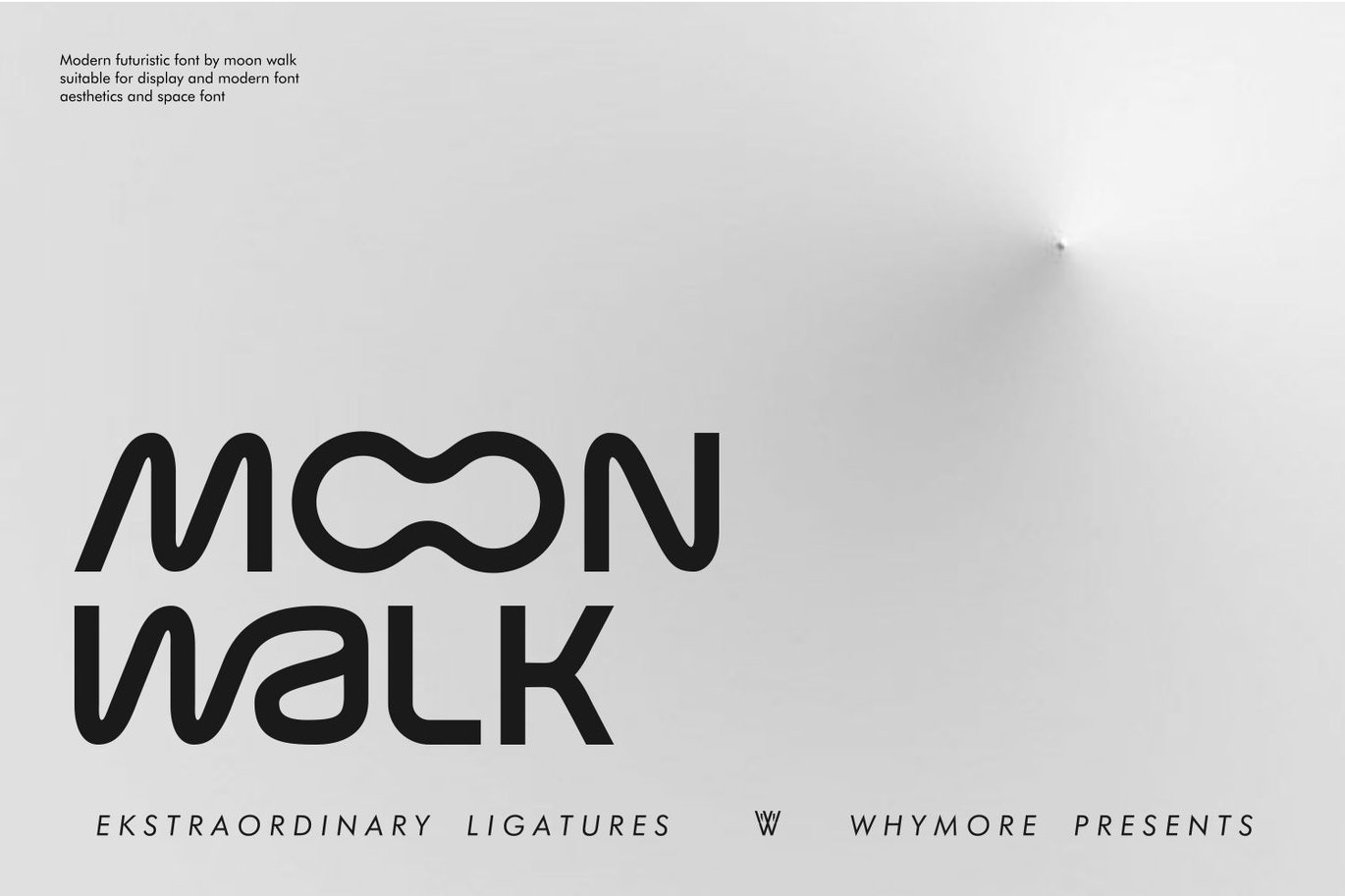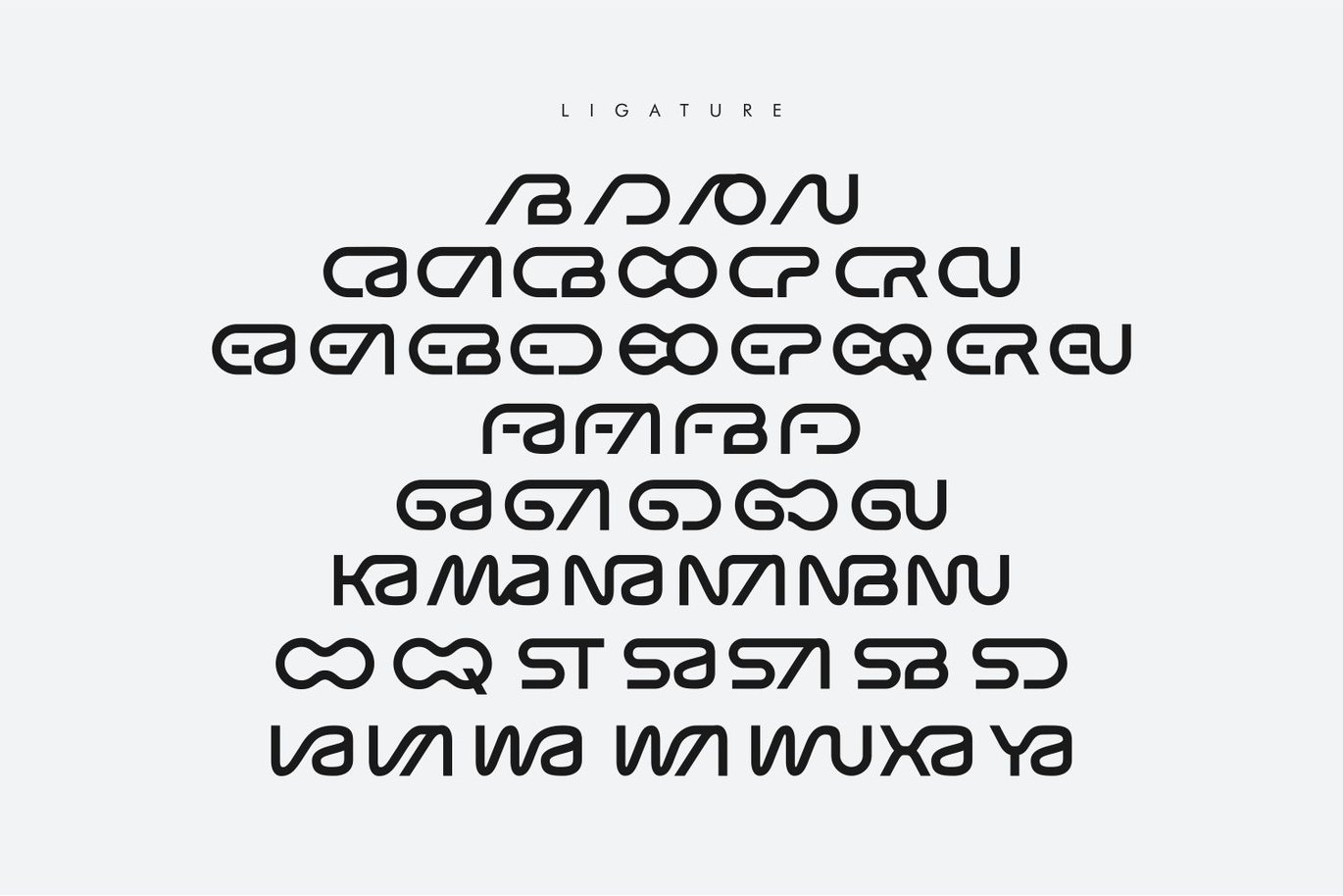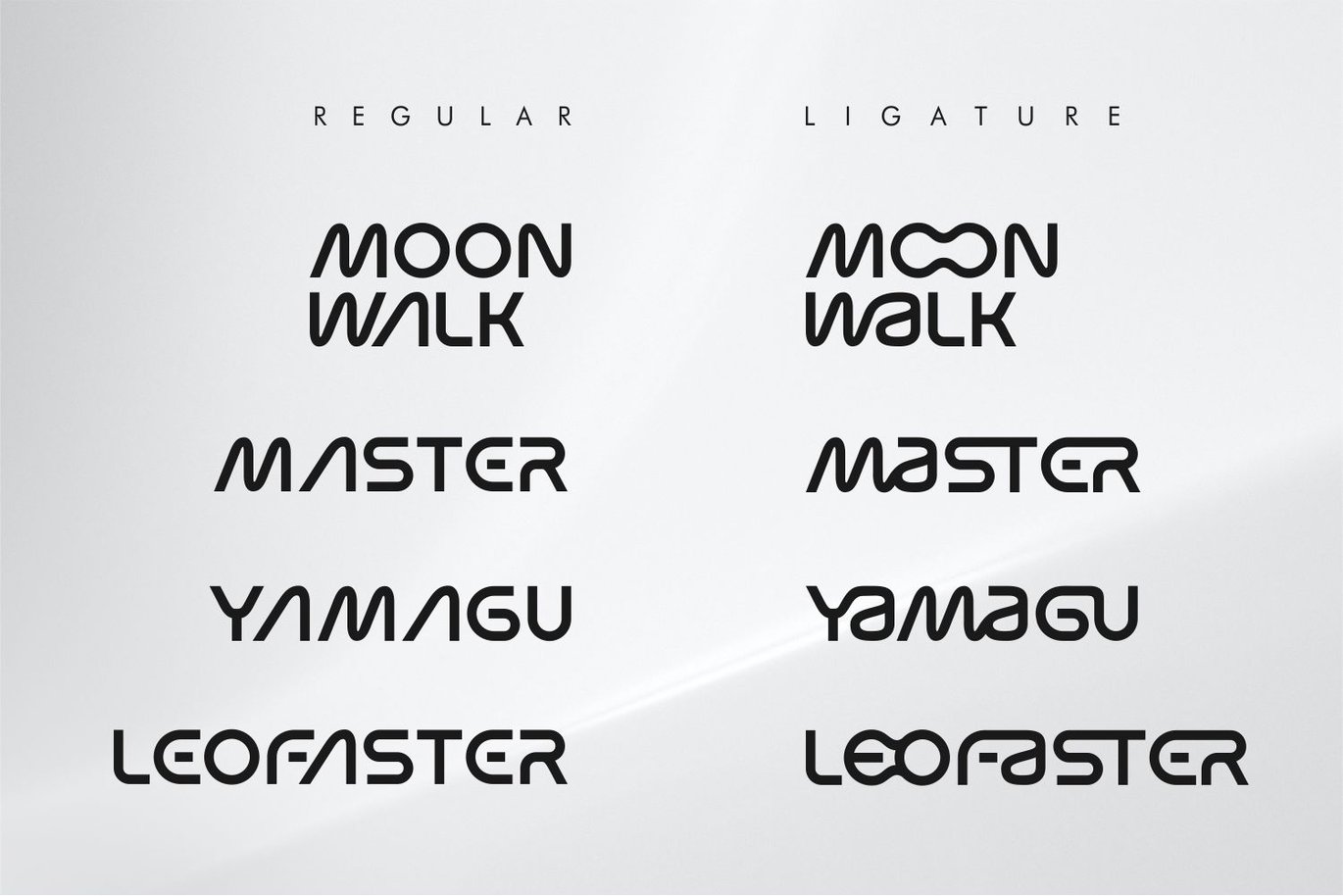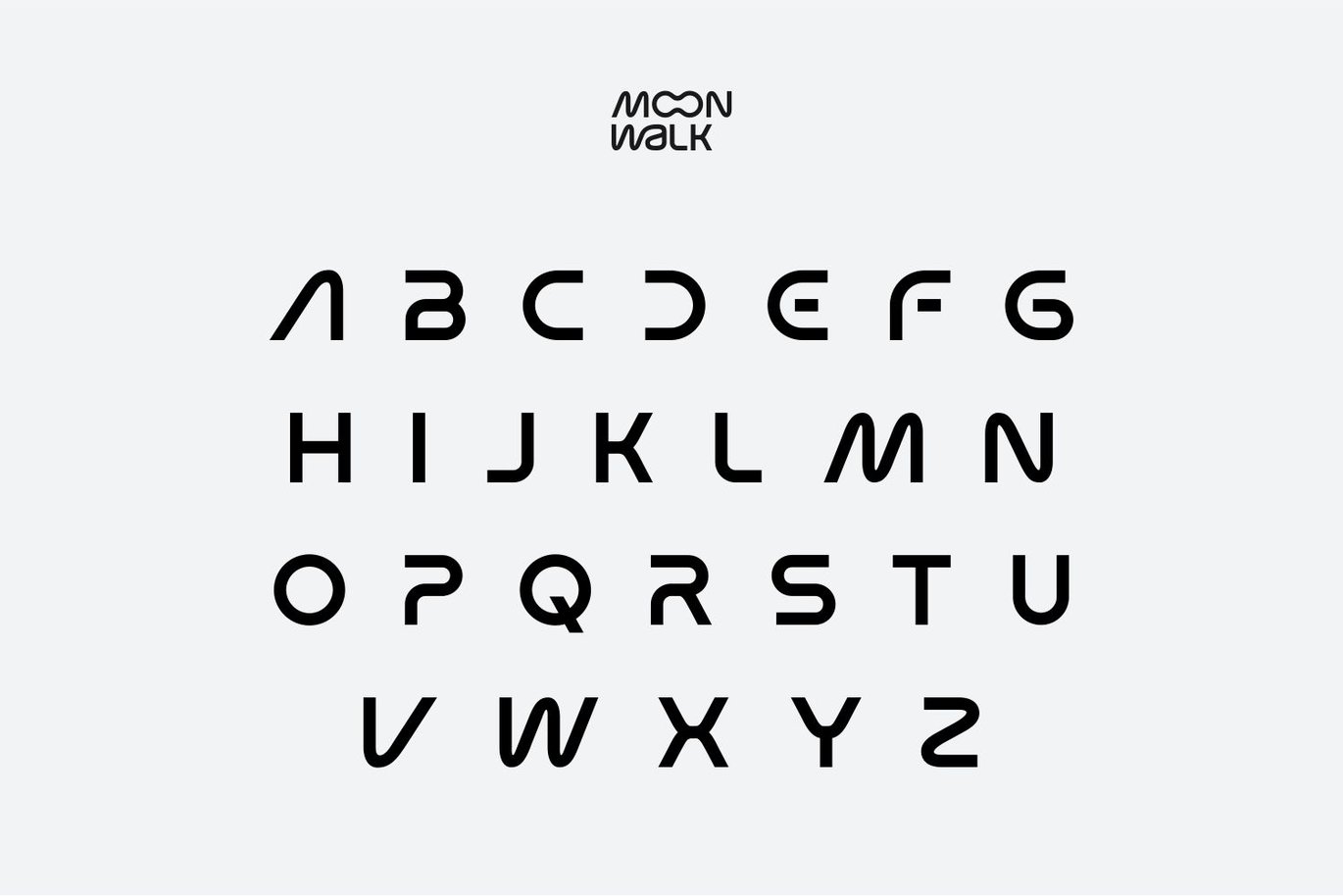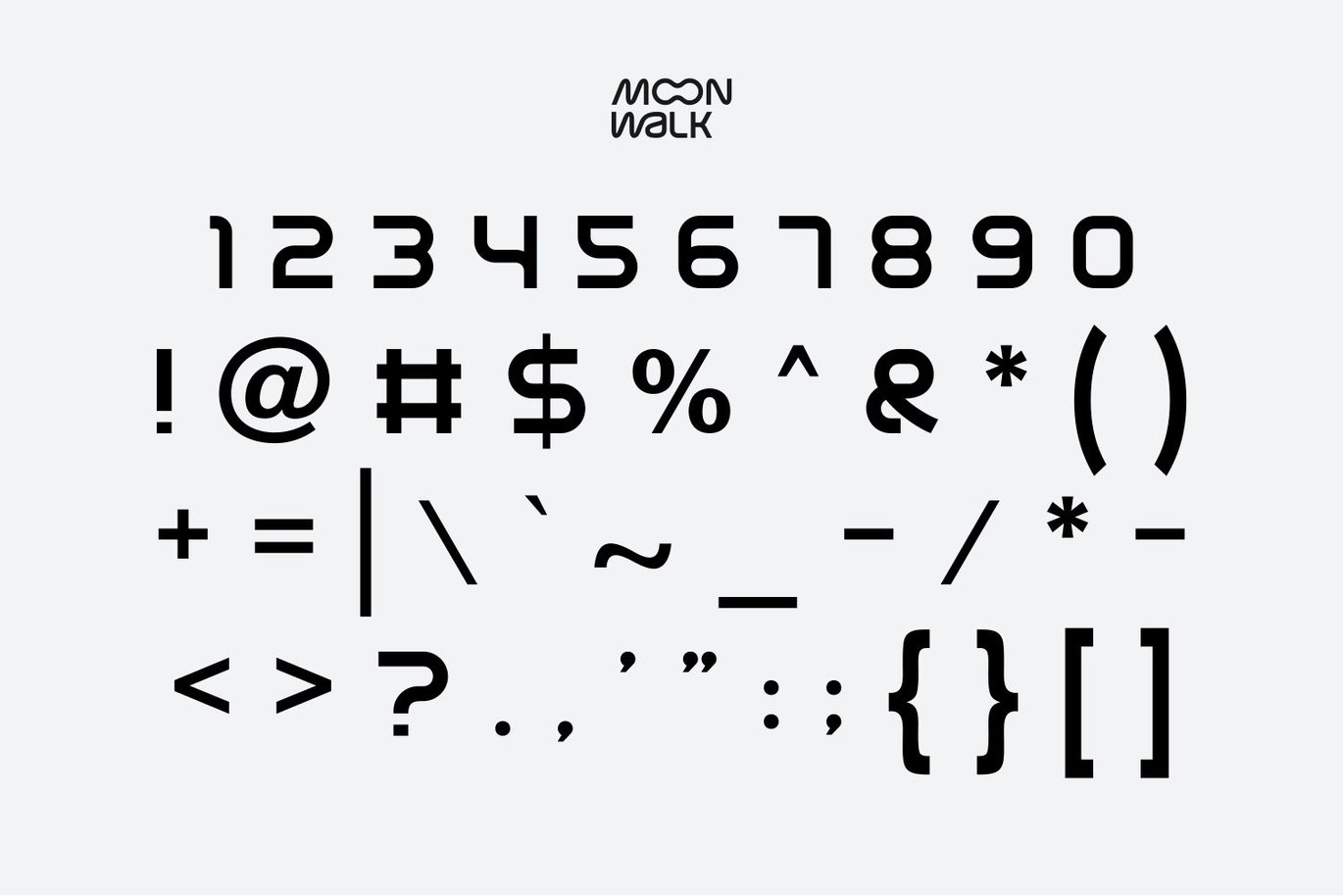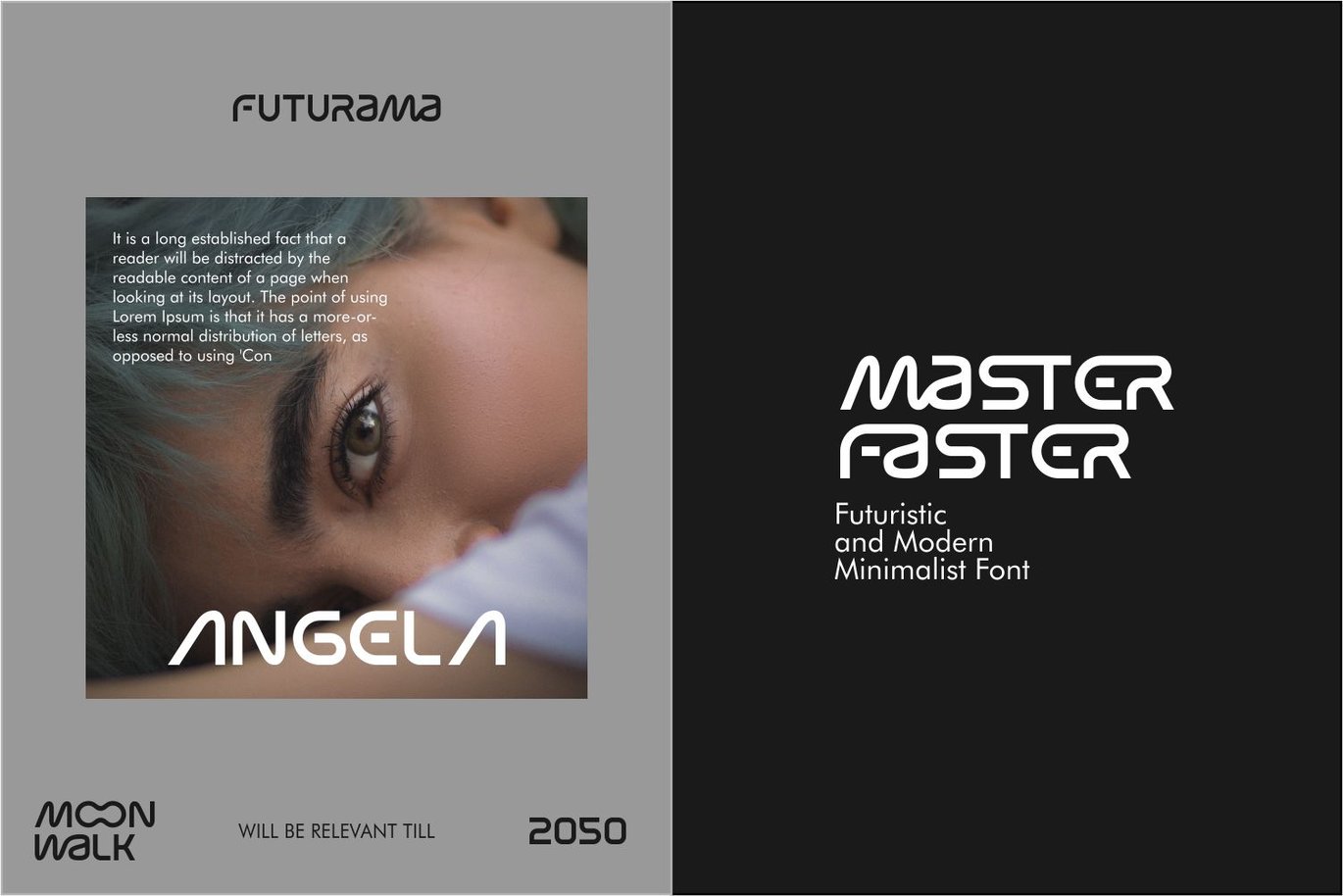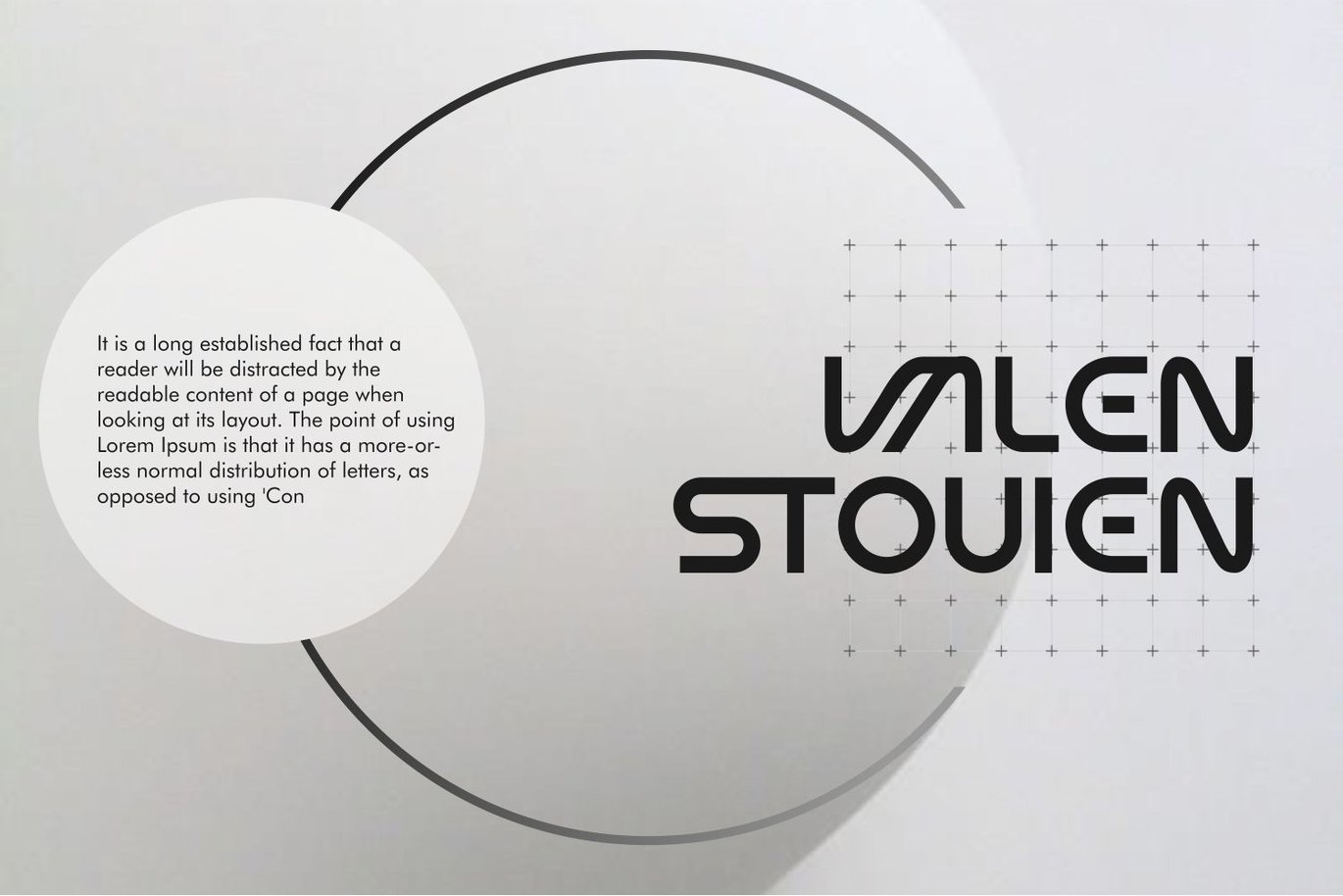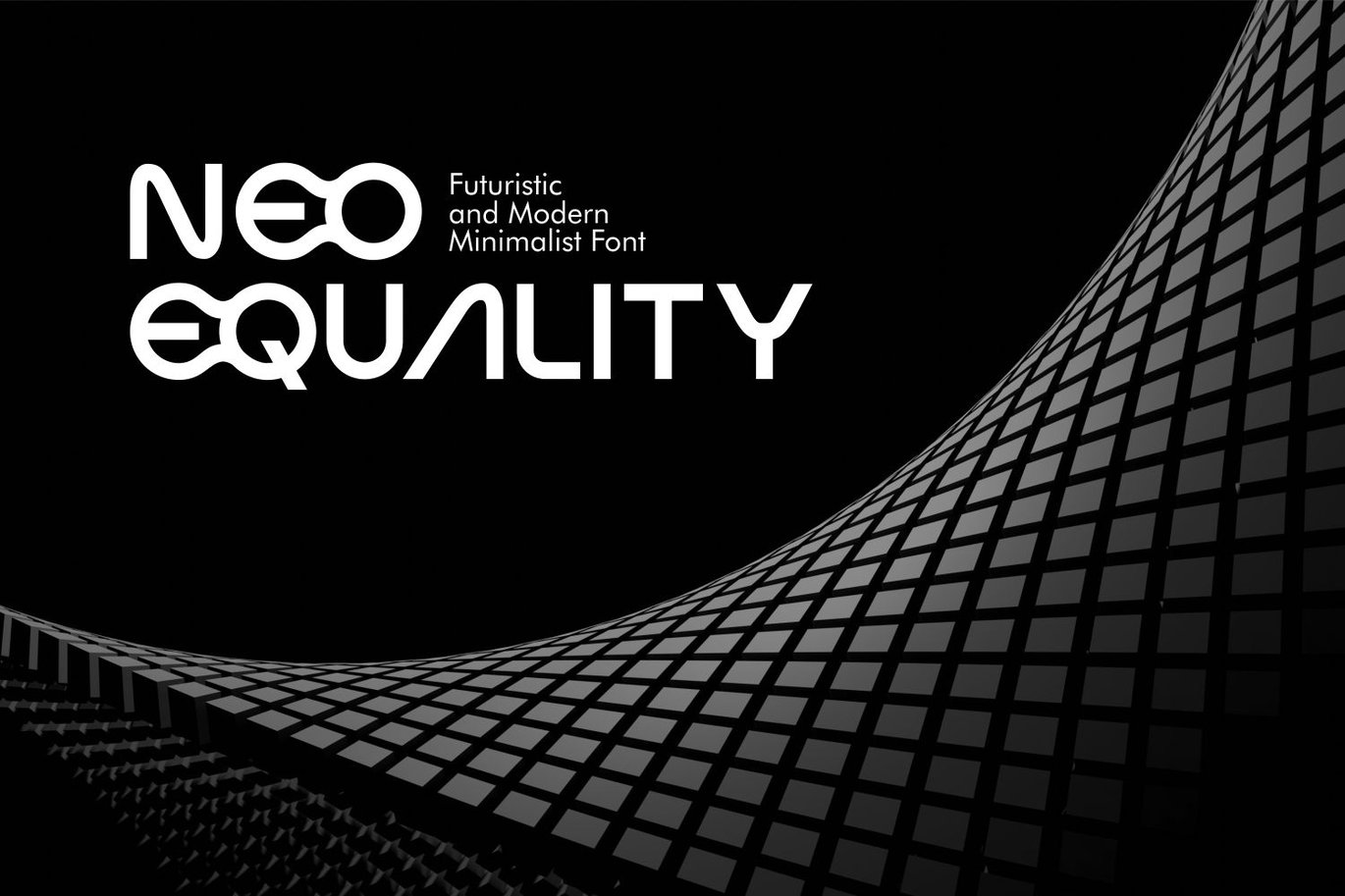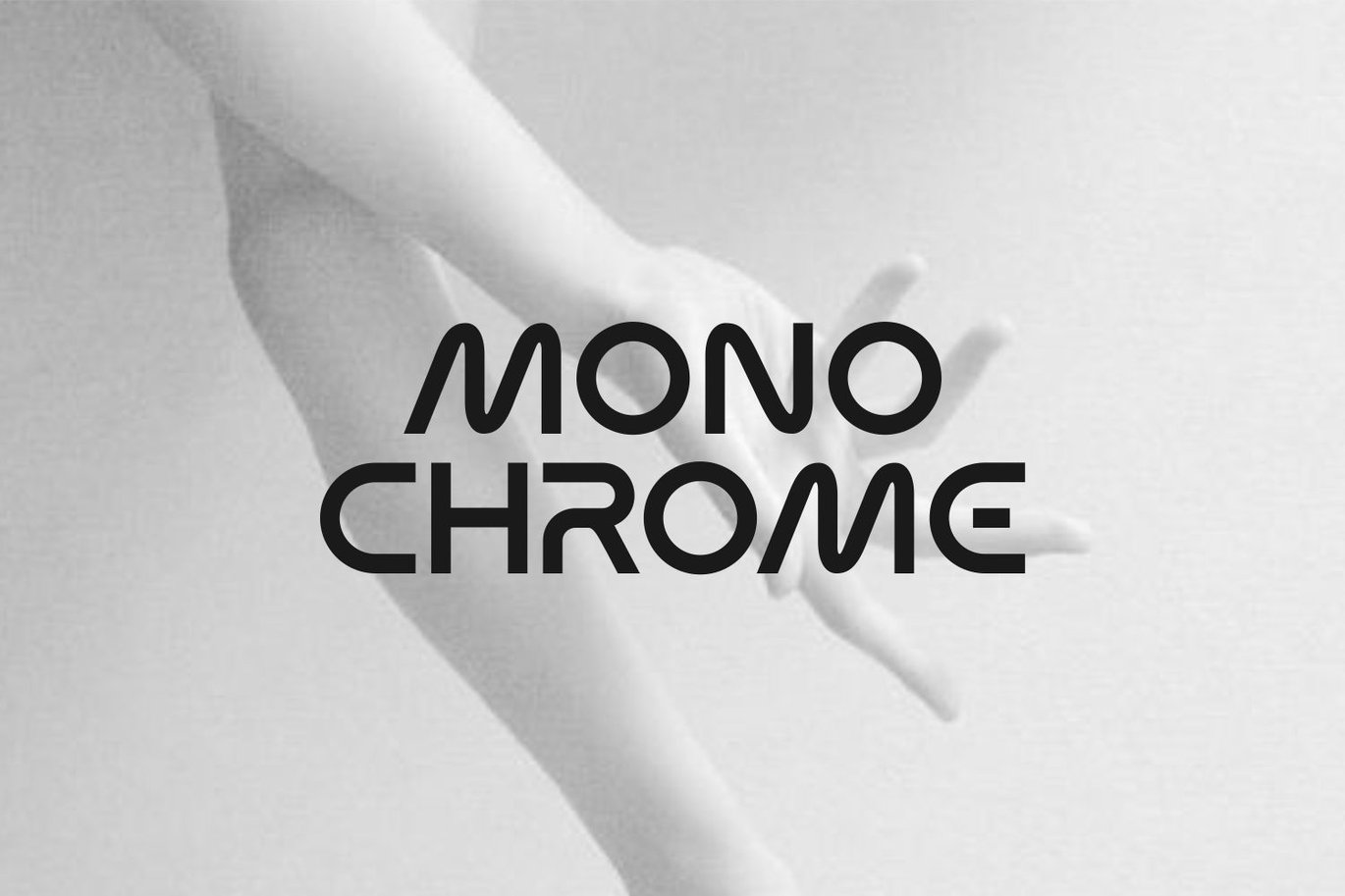
Moon Walk | Futuristic Modern Fonts
Ever seen a futuristic font with an interesting ligature?
Well, MOON WALK is a stunning typeface that can showcase elegance but with a minimalist form.
The curves at each end of the letter ornament illustrate that this font is very ready to live in the present and the future.
Minimalist yet luxurious and classy. Whether used for branding, Design templates, in the form of invitations, calendars, posters, headlines, brochures, promotional tools or editorial designs, Moon Walk was created to meet the visual needs of a technological development.
The versatile nature of the Moon Walk font makes it suitable for headlines, logos and lettering. Its legibility ensures clear communication yet invites a sharp eye catch. Moon Walk is the perfect choice for those looking for a typeface that embodies the Future and sophistication that will not be limited by time.